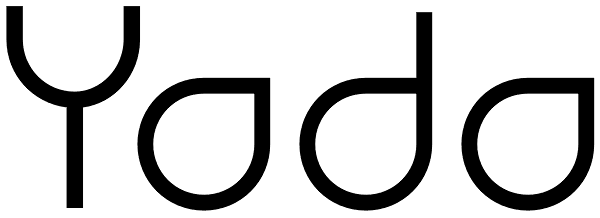
Yodo
A geometric typeface that combines elegant curves with precise angles. The contemporary nature of this font will compliment a wide variety of graphic design applications. Details include 3 weights, a full character set, manually edited kerning and...